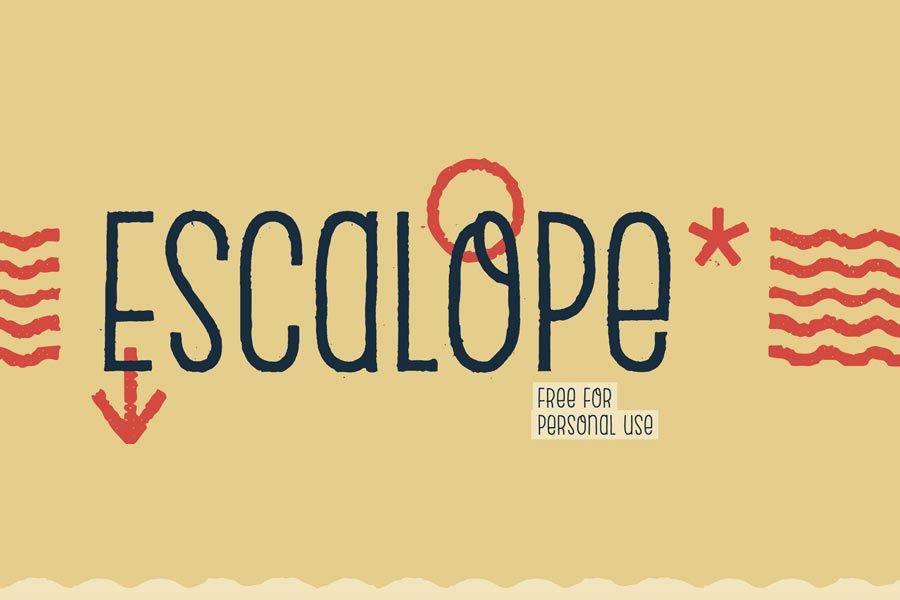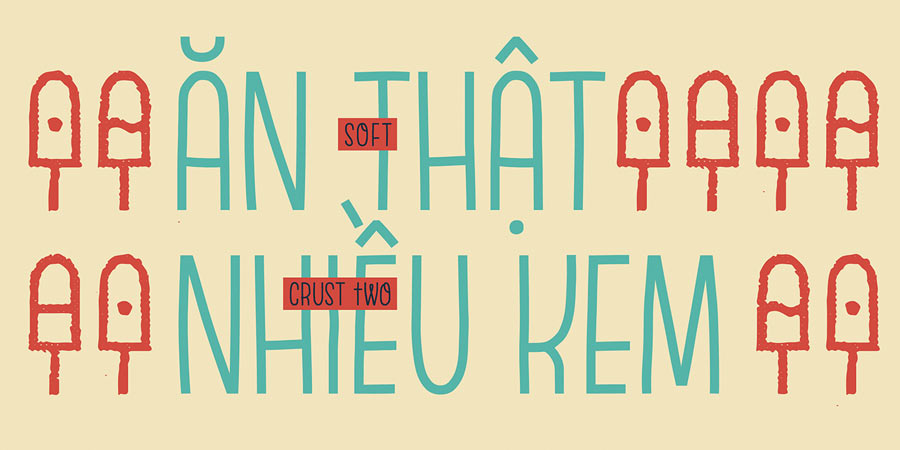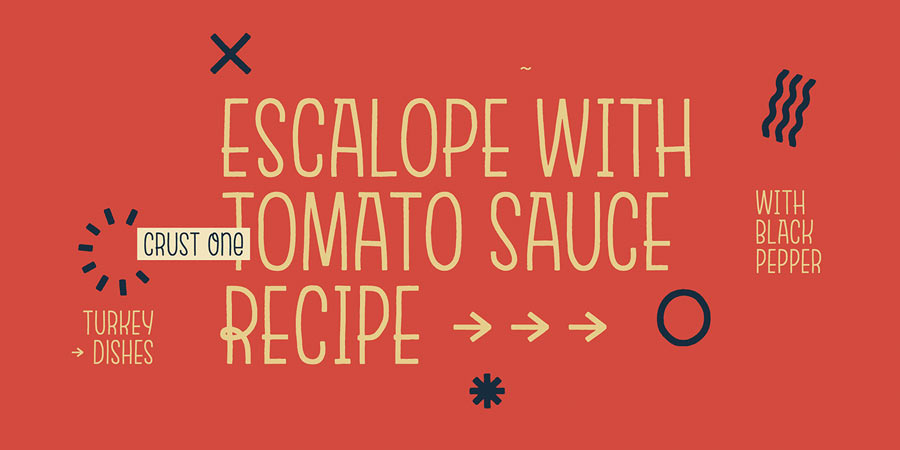
Escalope is a unique hand-drawn font that comes with 4 styles. The letters are tall and featuring tonnes of unique characteristics: low midline, false-AllCaps style, also all the playfulness in terms of character design styles. The font also comes with sets of ligatures which allows you to create designs with limitless possibility.
Not only that, a set of 150 icons are also provided together with the font. The icon designs share the same trait as the font and it’s perfectly well blend with the font.
- Styles: 4 (Crust One to Three, Soft)